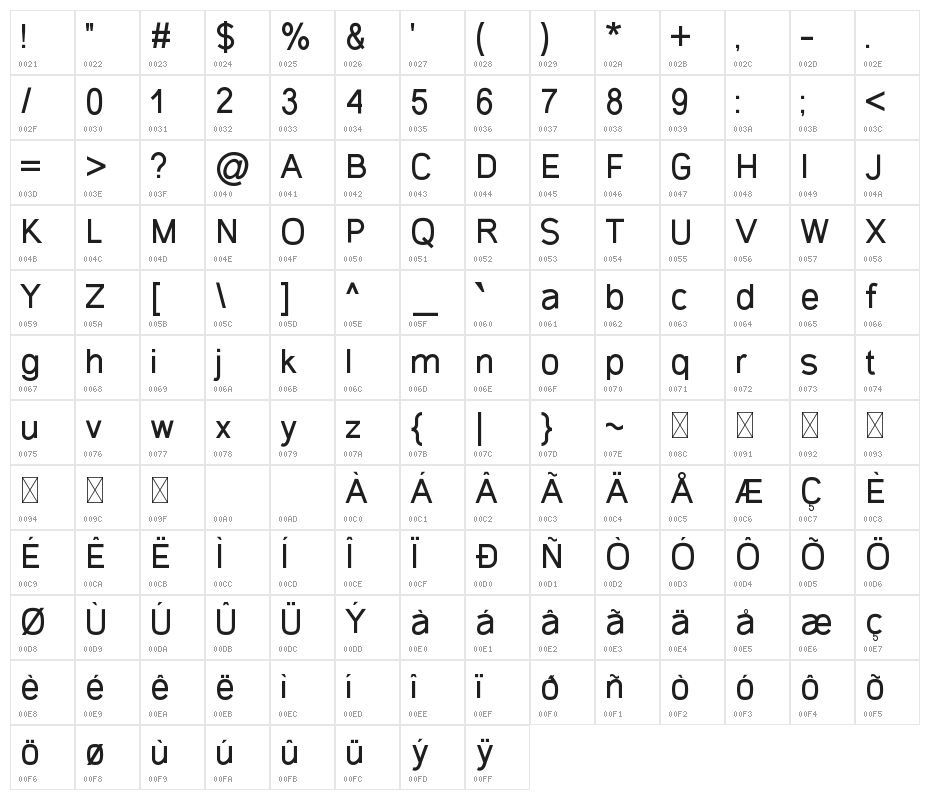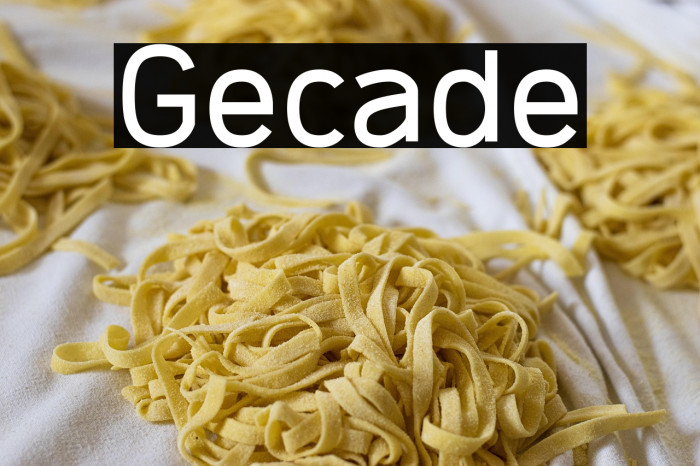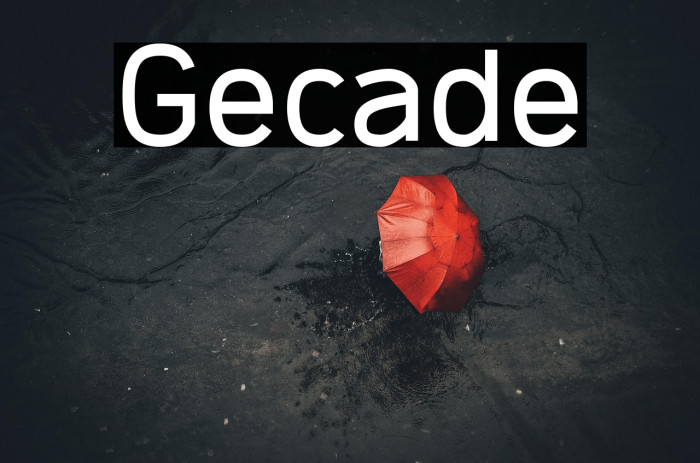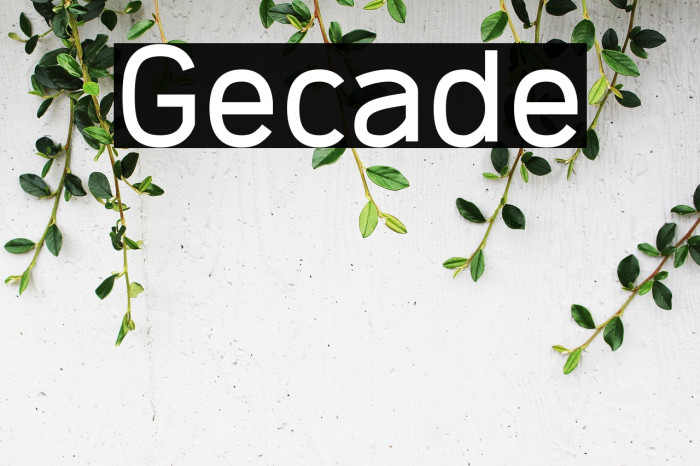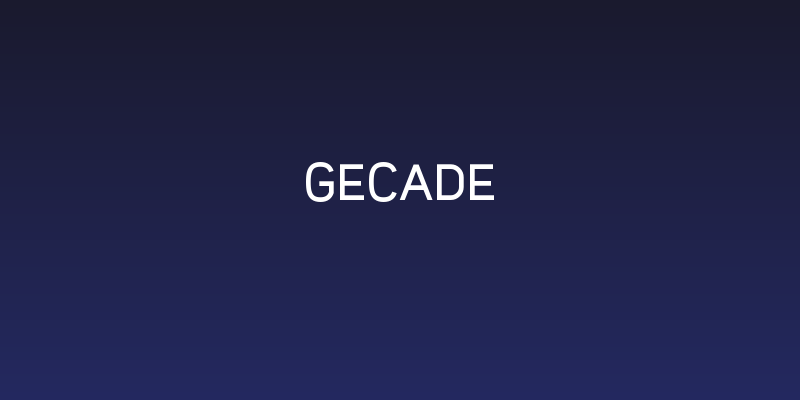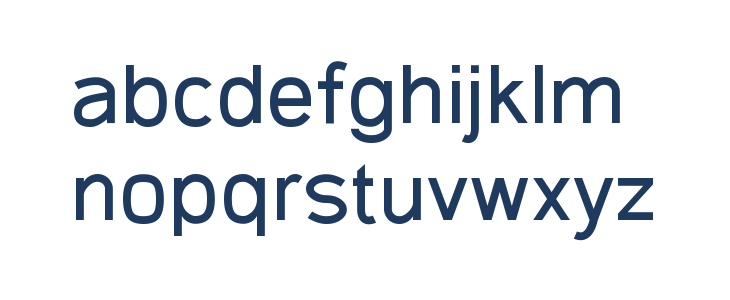
Gecade Font
Gecade Description
This font features a clean and modern sans-serif design with a uniform stroke width, providing a sleek and professional appearance. The characters are well-balanced with a geometric influence, evident in the circular shapes of the 'O' and '0', and the consistent height of the lowercase letters. The uppercase letters are bold and assertive, making them suitable for headlines. The numerals are clear and easily distinguishable, enhancing readability. Special characters are straightforward and match the overall minimalist style, making this font versatile for various applications.
| Use Case | Headlines, Body text, Logos |
| Proposed Projects | Ideal for corporate branding, digital interfaces, editorial design, and advertising materials. |